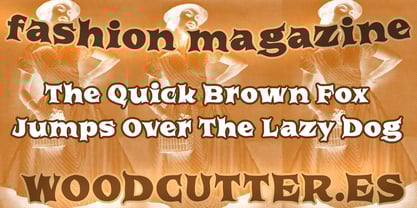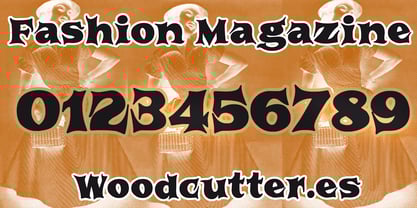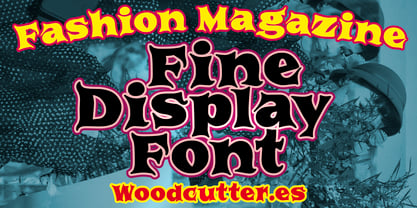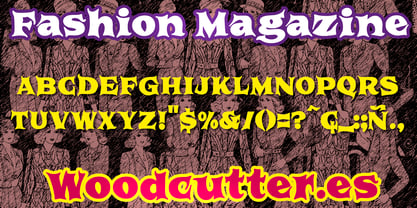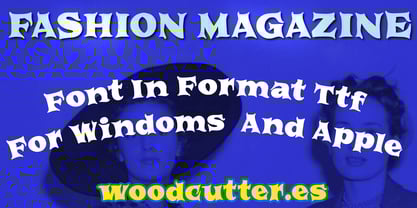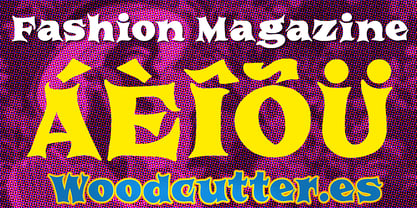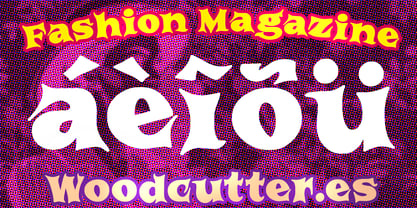
Fashion Magazine
by Woodcutter
The Fashion Magazine Font Family was designed by Jordi Manero and published by Woodcutter. Fashion Magazine contains 1 styles. More about this family
“Fashion Magazine” is an elegant and modern typeface, combining stylized uppercase and lowercase letters with a unique flair. Its sharp and imperfect shapes convey sophistication with a rebellious edge, ideal for fashion design projects, editorials, or bold branding. The accents are carefully integrated to maintain a refined yet daring aesthetic. Each character feels handcrafted, offering an artisanal touch while retaining its contemporary essence. Perfect for impactful headlines and visual compositions that need to stand out with a balance between polished and creative elements.
Designers: Jordi Manero
Foundry: Woodcutter